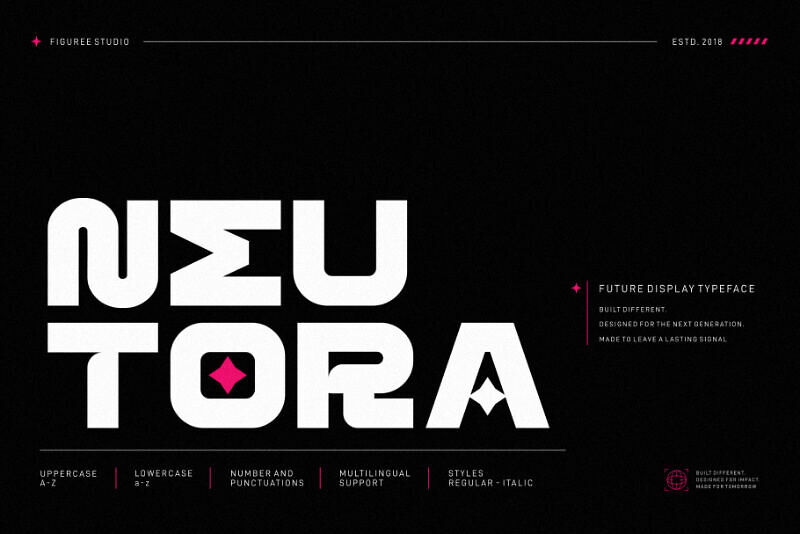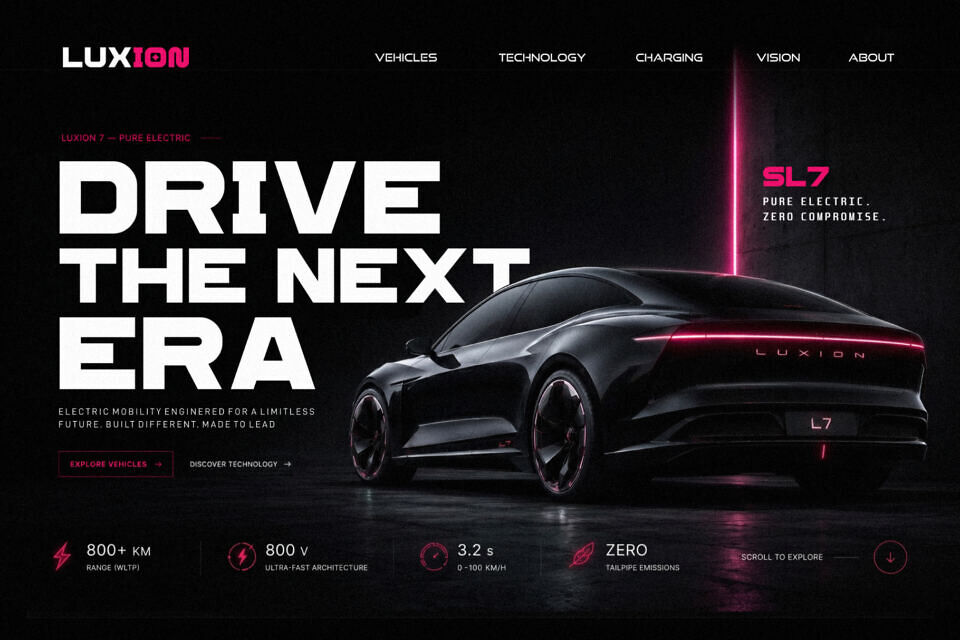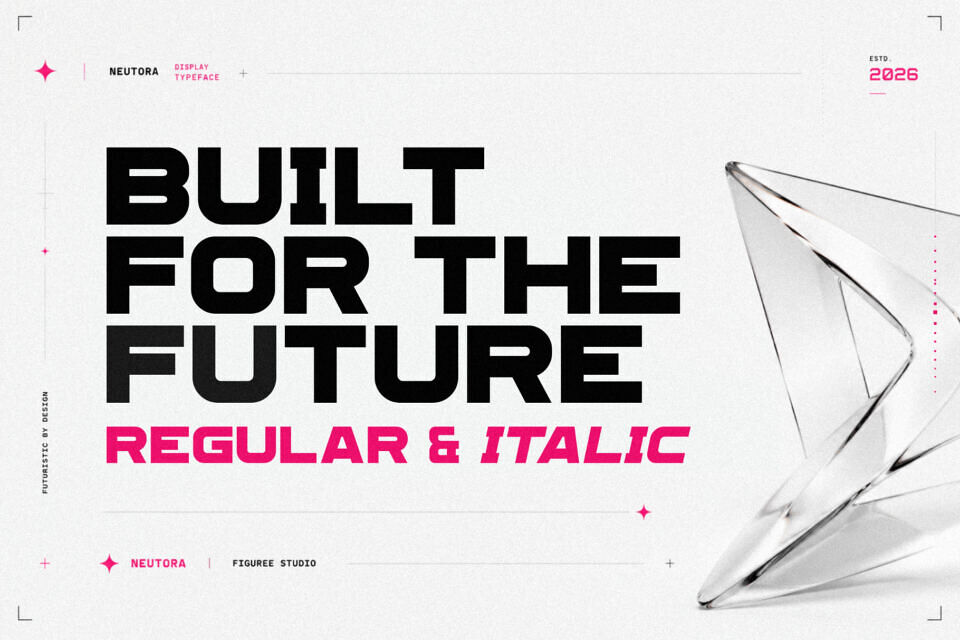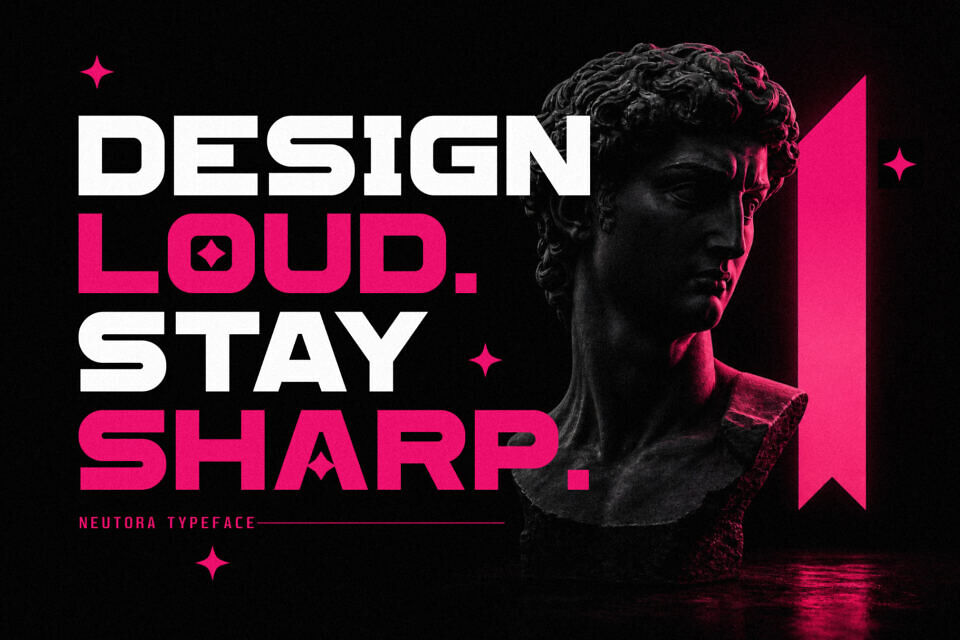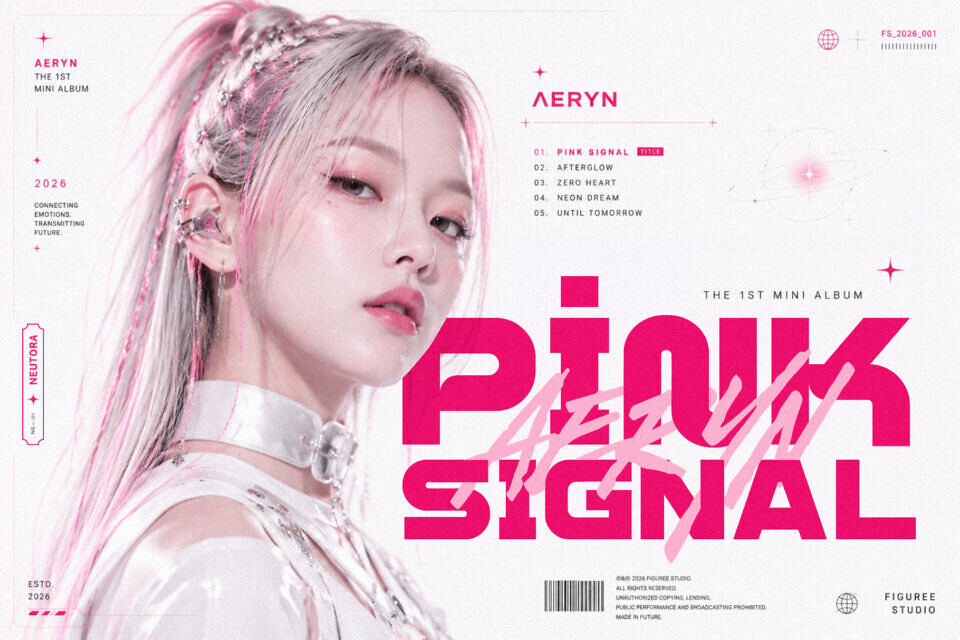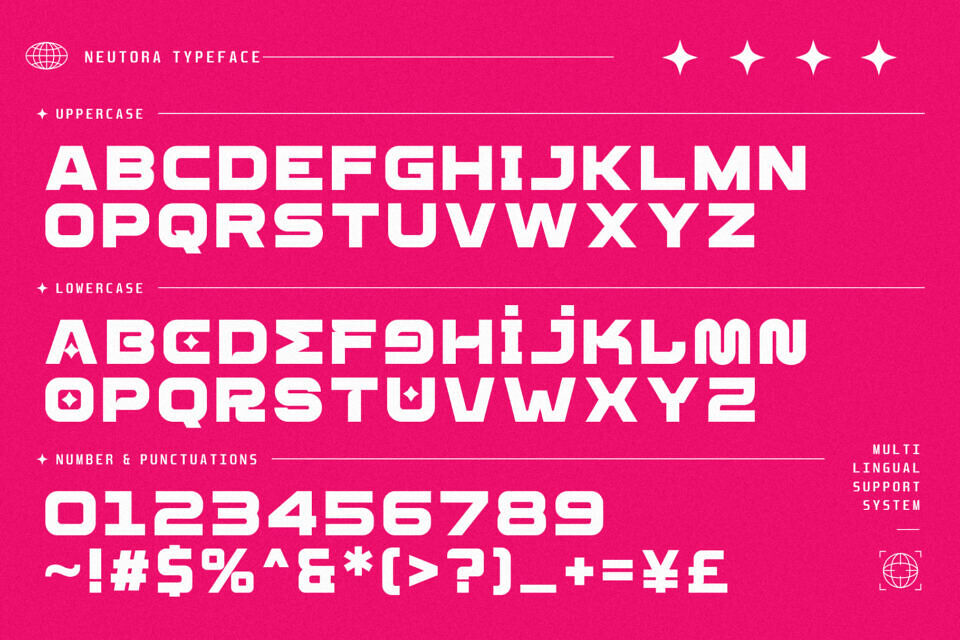
Neutrona is a sleek futuristic font crafted for cutting-edge digital design. With geometric forms, soft-rounded terminals, and clean mono-linear strokes, Neutrona blends modern technology and sci-fi style into a typeface perfect for branding, interfaces, and innovation-driven projects.
It includes uppercase, lowercase, numbers, and punctuation—making it highly versatile for web, print, and tech product applications. Whether you’re working on AI dashboards, gaming platforms, or space-age posters, Neutrona delivers a smart, minimalist, and forward-looking impression.